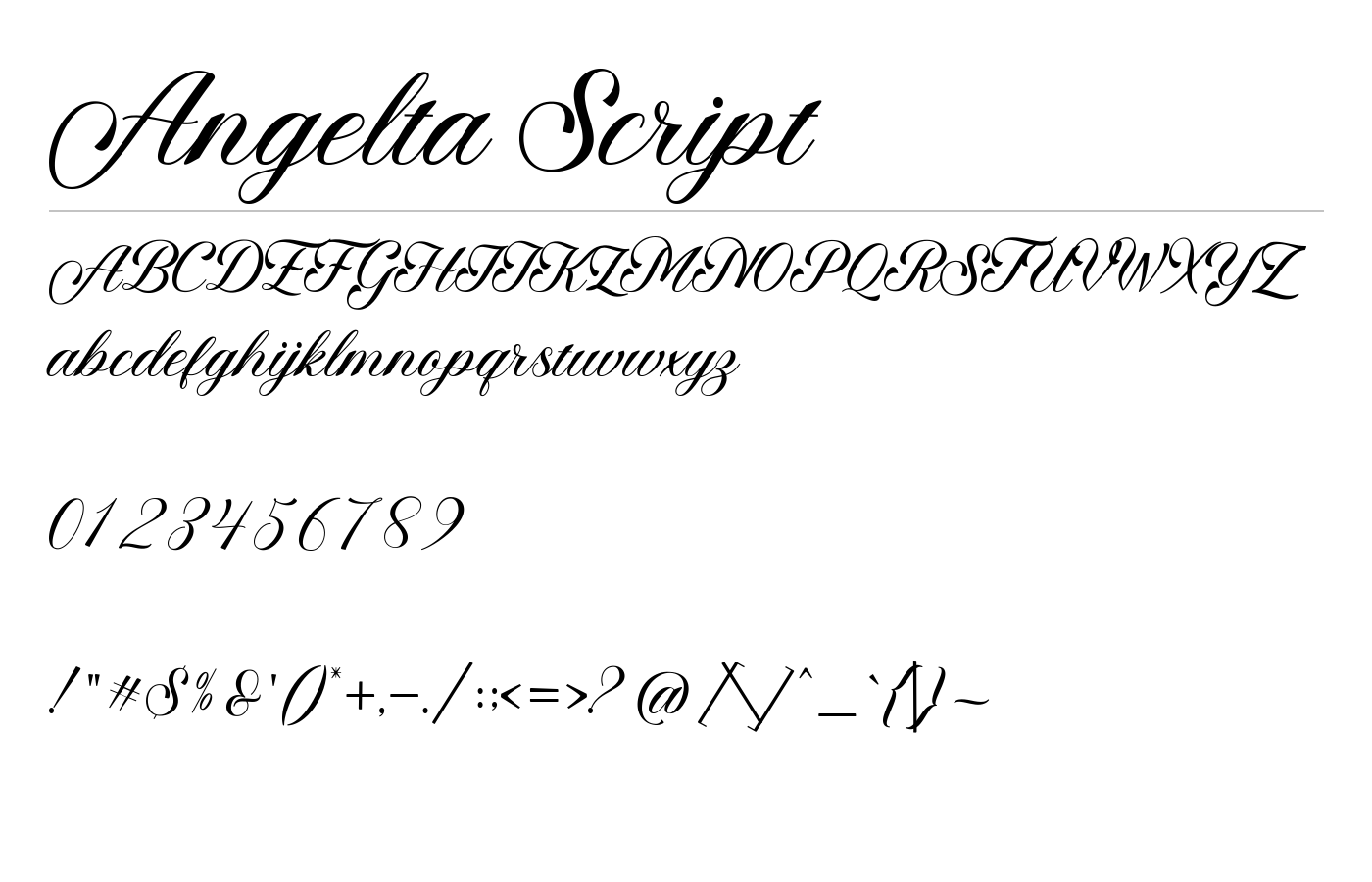
Angelta Script is an elegant, flowing script font with smooth, graceful strokes and high contrast between thin and thick lines, giving it a refined, classic feel. Its delicate curves and sophisticated letterforms make it perfect for luxurious branding, wedding invitations, and stylish editorial projects where a touch of timeless elegance is desired. This font works beautifully in headlines and logos, adding a sense of charm and sophistication to any design.
Angelta Script Font
About Angelta Script Font
| Font family | Angelta Script Font |
| Designer | RIZKI ANDIKA |